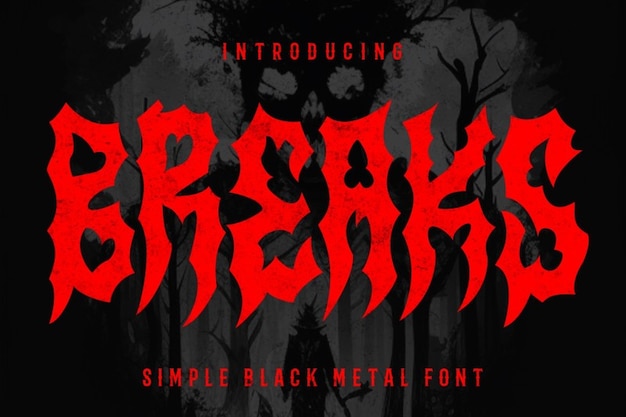
Breaks Font
Breaks is a font inspired by the intense energy of death metal and heavy metal genres, with a grunge aesthetic. Its sharp, jagged lines and aggressive strokes create a raw, visceral look, perfect for edgy designs. This font encapsulates the rebellious spirit and dark themes often associated with metal music, adding a bold, expressive touch to any project.